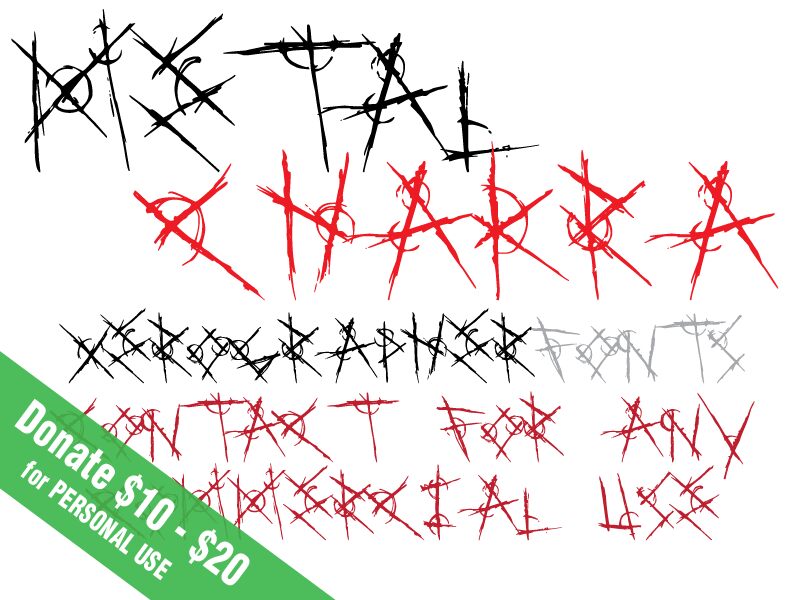
Metal Chakra by Xerographer Fonts is a free decorative display font with a severe, modern Gothic edge. Its letters resemble wiry strokes slashed together by hand.
A metal album cover is its most convincing setting, with tangled forms that become part of the artwork rather than ordinary type. The same abrasive texture suits horror posters, underground club flyers, and extreme-sports merchandise. Across these uses, the repeated crossings and thorn-like projections connect the lettering to scratched surfaces, barbed wire, and improvised marks.
Metal Chakra is a free display font by Xerographer Fonts.